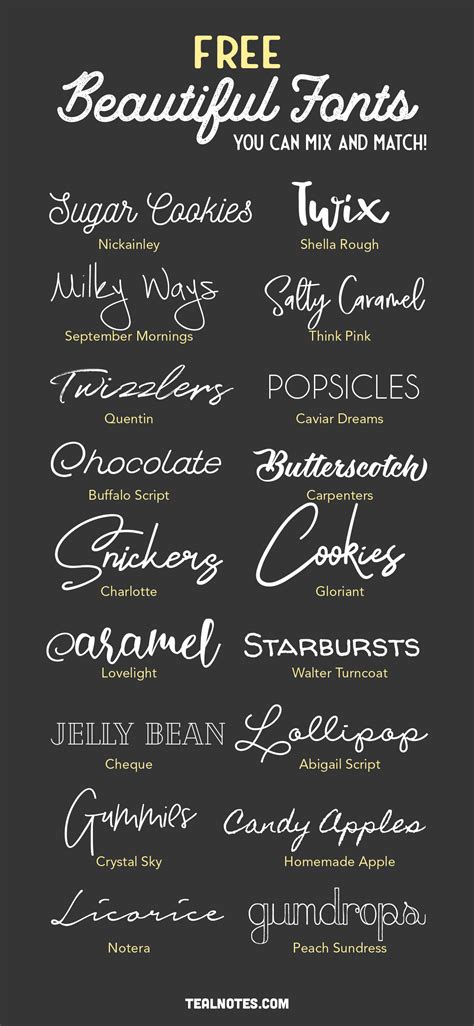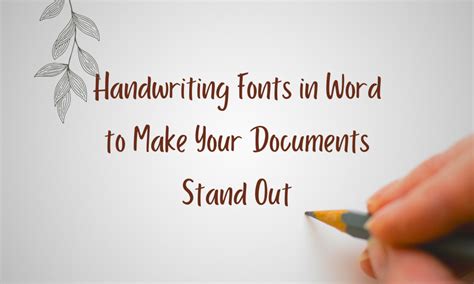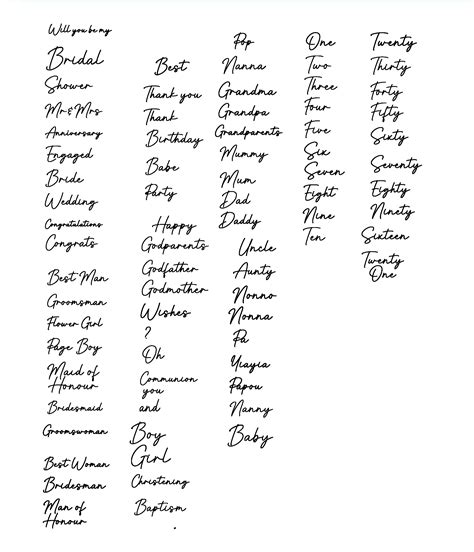
Cursive fonts have a timeless elegance that can add a touch of sophistication to any document. Whether you're creating a formal invitation, a personal letter, or simply want to enhance the aesthetic appeal of your text, using cursive fonts in Word can be a game-changer. This guide will walk you through the process of adding and customizing cursive fonts in Microsoft Word, ensuring your documents stand out with style and grace.
Understanding Cursive Fonts
Cursive fonts are designed to mimic handwriting, often featuring connected letters that flow smoothly from one to the next. They are particularly popular for invitations, certificates, and other formal documents where a personal touch is desired. Some of the most well-known cursive fonts include Lucida Handwriting, Edwardian Script, and Vladimir Script. Each of these fonts has its unique characteristics, making them suitable for different types of documents.
- Select the text and apply your chosen cursive font.
- Customize the text box by adjusting its size, color, and borders as needed.
Common Cursive Fonts in Word
Here is a table of some common cursive fonts available in Word, along with their characteristics:
| Font Name | Characteristics | Best For |
|---|---|---|
| Lucida Handwriting | Casual, handwritten style | Personal letters, informal invitations |
| Edwardian Script | Elegant, formal script | Weddings, formal invitations |
| Vladimir Script | Bold, decorative script | Certificates, awards |
| Script MT Bold | Thick, bold script | Headings, titles |
| French Script MT | Elegant, flowing script | Formal documents, invitations |
Tips for Using Cursive Fonts Effectively
While cursive fonts can add a beautiful touch to your documents, it’s important to use them effectively. Here are some tips:
- Use Sparingly: Cursive fonts can be hard to read, especially in large blocks of text. Use them for headings, short phrases, or to highlight important information.
- Choose the Right Font: Different cursive fonts have different personalities. Choose one that matches the tone of your document.
- Consider Readability: Ensure that the cursive font you choose is legible. Some fonts may look beautiful but can be difficult to read, especially for those with visual impairments.
- Pair with Simple Fonts: Balance cursive fonts with simpler, more readable fonts for the body text. This creates a harmonious design that is both aesthetically pleasing and easy to read.
Cursive fonts can transform your documents from ordinary to extraordinary. By following the steps outlined above, you can easily add and customize cursive fonts in Word, making your text stand out with elegance and style. Whether you’re creating a personal letter, a formal invitation, or any other type of document, cursive fonts in Word offer a versatile and beautiful way to enhance your writing.